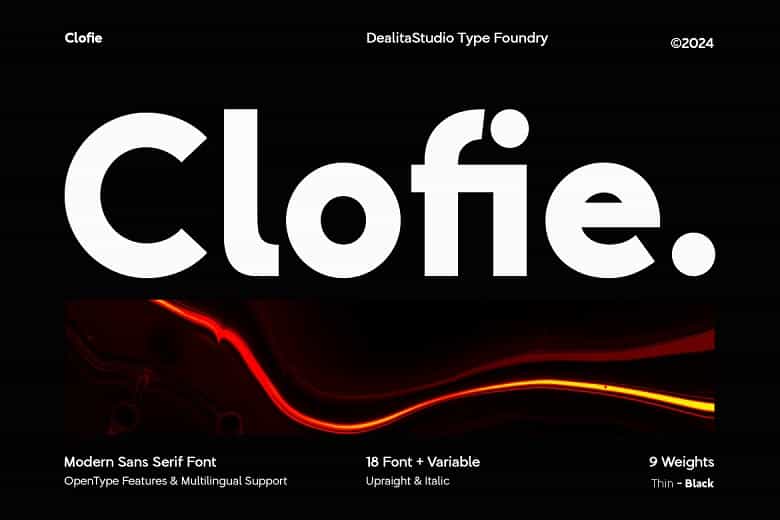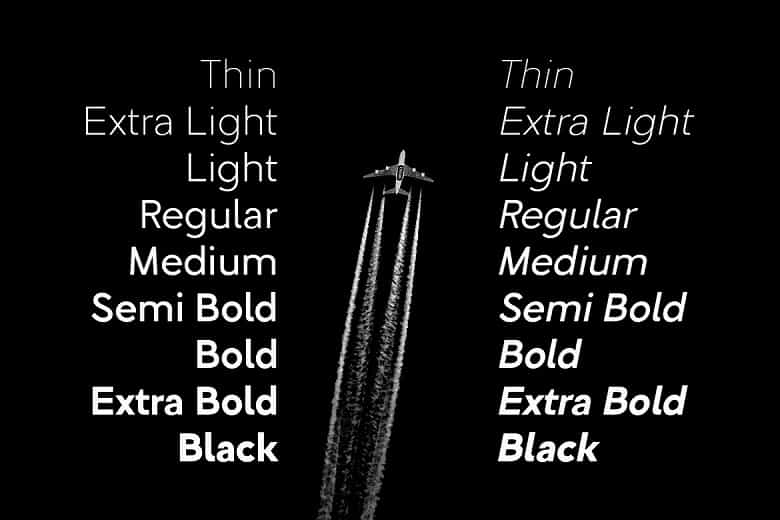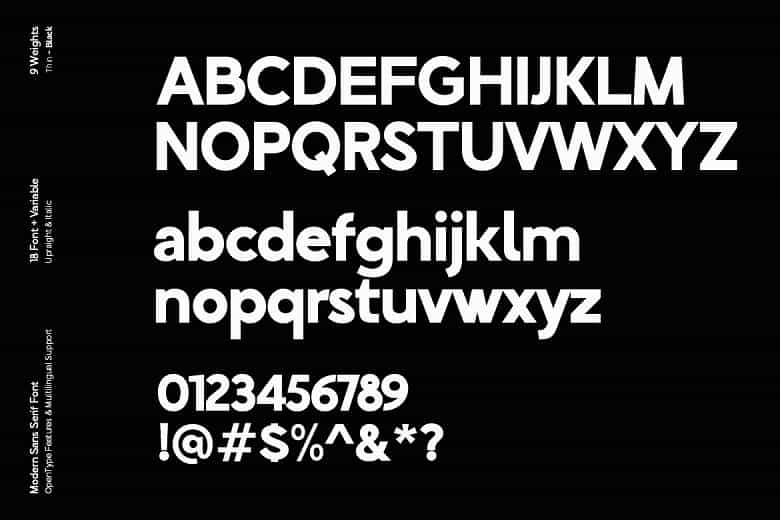
Clofie is a modern sans serif font that has some retro flavor to it while at the same time coming across as classy, elegant, and stylish. Clofie is ideal to be used especially in logos and other formal formats such as invitation cards, stickers, logos, magazines, books, greeting/wedding cards, packaging, fashion, make up, stationery, novels, labels or any form of advertising.